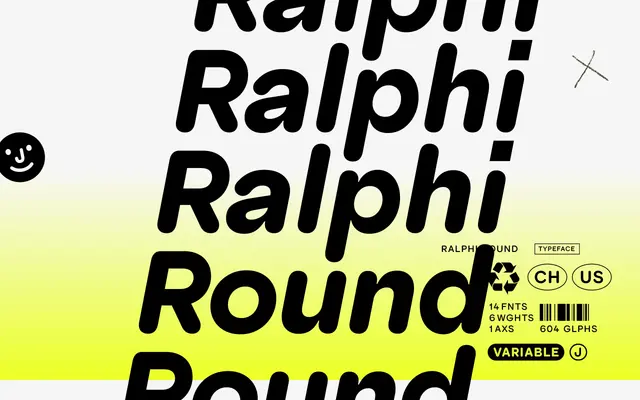
Ralphi Round
Juri Zæch · Juri Zæch
A rounded geometric sans with a deliberate inversion: soft stroke terminals paired with sharply square tittles and punctuation, creating a structured friendliness across six weights with italics.
Derived from the same geometry as Ralphi Sans, Ralphi Round replaces straight terminals with rounded endings while keeping square dots and punctuation marks, a contrast that stops the design from reading as merely soft. Characterful letterforms on glyphs such as a, f, q, t, y and Q add personality, and OpenType alternates allow designers to shift the typographic tone between playful and restrained. The family covers over 200 Latin languages via Underware's Latin Plus character set and includes tabular figures, case-sensitive punctuation, fractions and circled numerals.
Ralphi Round is a geometric sans-serif with rounded stroke terminals, sharing the same underlying geometry as Ralphi Sans but distinguished by its soft endings and characterful letterform details.